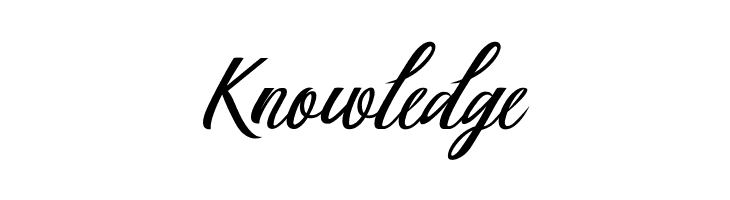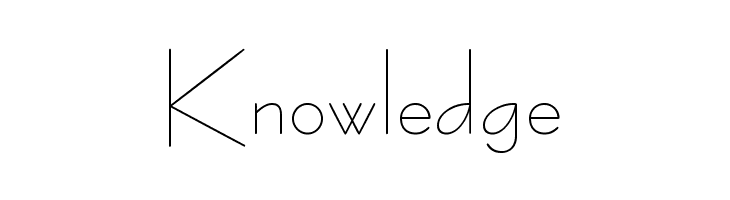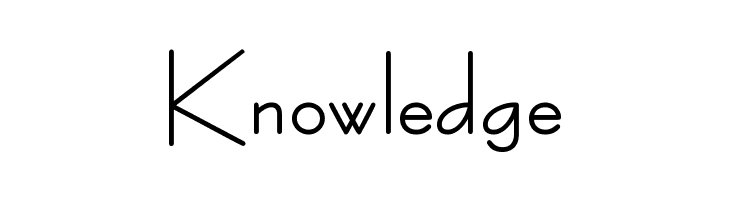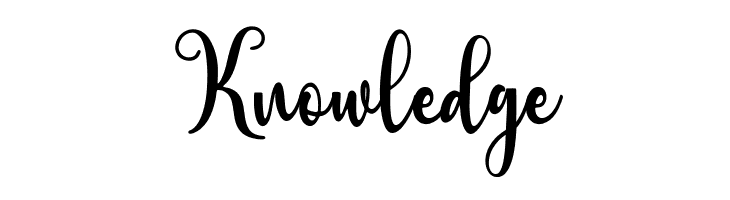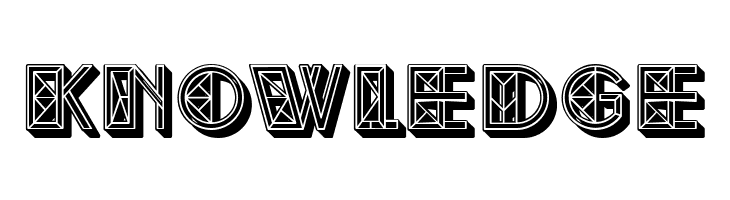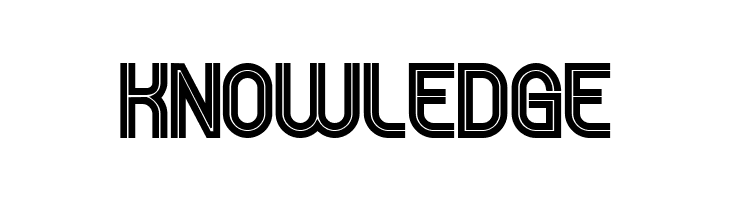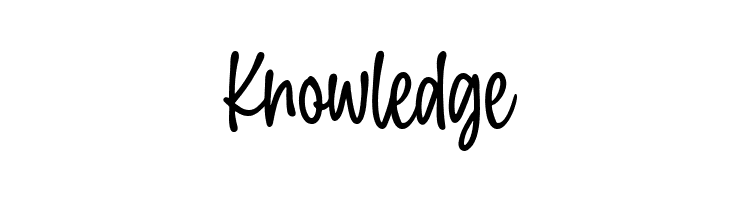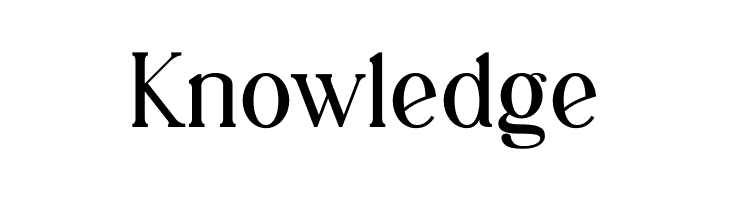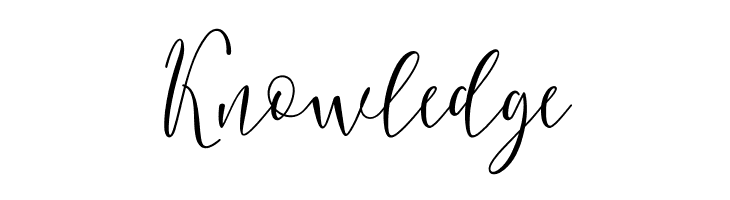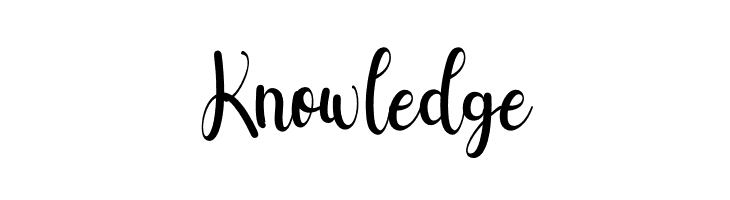
• BerlinsaScript
A flowing, cursive script font with elegant, sweeping strokes.
• BerlinScript
A classic, elegant script font with flowing, connected letterforms and high contrast.
• BerlinScript-Regular
A lively and playful script font with flowing, interconnected strokes.
• BerlinScript-Regular
A lively and expressive cursive font with elegant loops and swashes.
• berlinsignature
A sophisticated script font with elegant, flowing cursive strokes.
• berlinsignature
An elegant, flowing script font with a signature-like style.
• Berlinsky
A playful, casual handwritten font with smooth, rounded strokes.
• Berlion Regular
A playful, casual handwritten font with fluid strokes and a friendly appearance.
• Berlishanty Calligraphy
An elegant calligraphy font with intricate, flowing letterforms and ornate details.
• Berlishanty Calligraphy Italic
An elegant calligraphy font with flowing, interconnected strokes and ornate details.
• Berlleigh
A classic serif font with elegant strokes and sharp serifs.
• Berlleigh
A classic serif font with elegant strokes and refined style.
• Berllina
An elegant and sophisticated cursive font with ornate uppercase and smooth lowercase letters.
• BerloosComix
A playful, cartoon-inspired font with bold, rounded characters featuring whimsical designs.
• Berlynda FREE
An elegant script font with flowing, ornate characters.
• BerlyndaFREE
An elegant script font with flowing, cursive style and decorative flourishes.
• Berlysa
A playful and artistic script font with fluid, dynamic strokes.
• Berlysa Italic
A flowing, cursive font with elegant, sweeping strokes and a modern calligraphic style.
• Bermont Free Regular
A bold, geometric font with a modern and confident style.
• Bernadette
A flowing, cursive script font with elegant, connected characters.
• Bernadette [Caps]